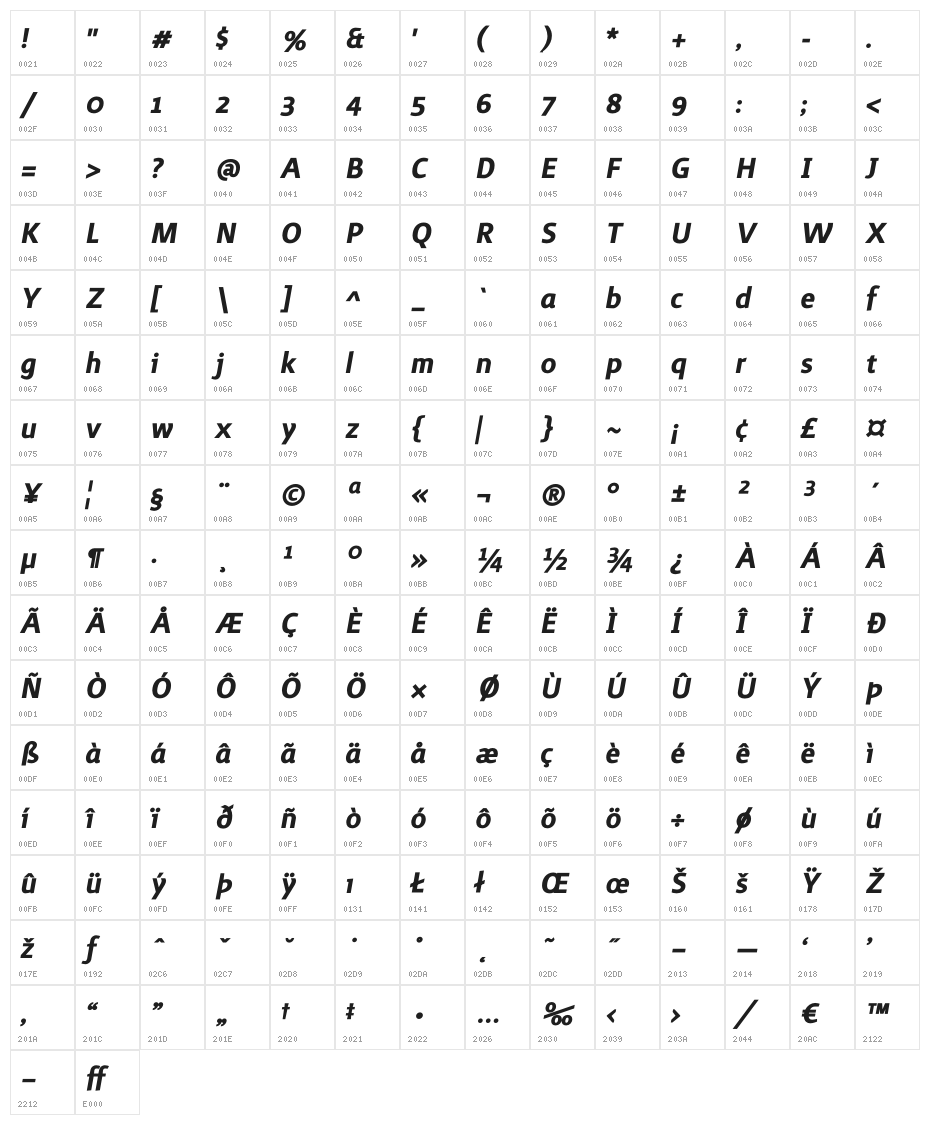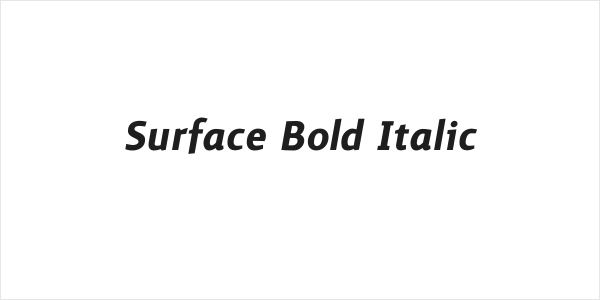
Surface Bold Italic Font
Surface Bold Italic Description
This font features a bold and italicized style, offering a dynamic and assertive appearance. The characters are slightly slanted, enhancing the italic effect, while maintaining a robust and solid structure typical of bold fonts. The strokes are consistent, providing a uniform look across all characters, including uppercase, lowercase, numbers, and special symbols. The design is clean and modern, making it suitable for various applications where emphasis and clarity are needed.
| Proposed Projects | Ideal for headlines, branding, advertising materials, and any design requiring a strong emphasis. |